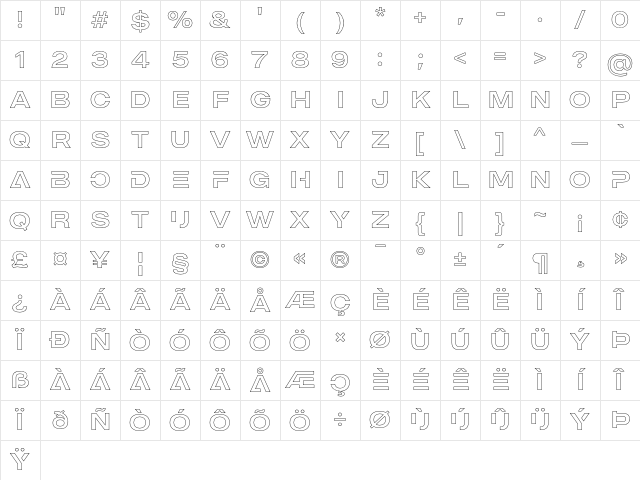
MADE Outer Sans Outline Alt Regular
Foundry: MadeType
Designer: MadeType
Design Context for MADE Outer Sans Outline Alt
MADE Outer Sans Outline Alt is built around its visual character rather than neutral utility - its distinctive forms are designed to make an impression at display sizes.
Font Pairing: Pair with a clean neutral sans-serif for body copy to let MADE Outer Sans Outline Alt's character lead without overwhelming the composition.
Pro Tip: Use MADE Outer Sans Outline Alt exclusively at display sizes - it was designed to be seen, not read at length. Let a neutral companion handle body copy.